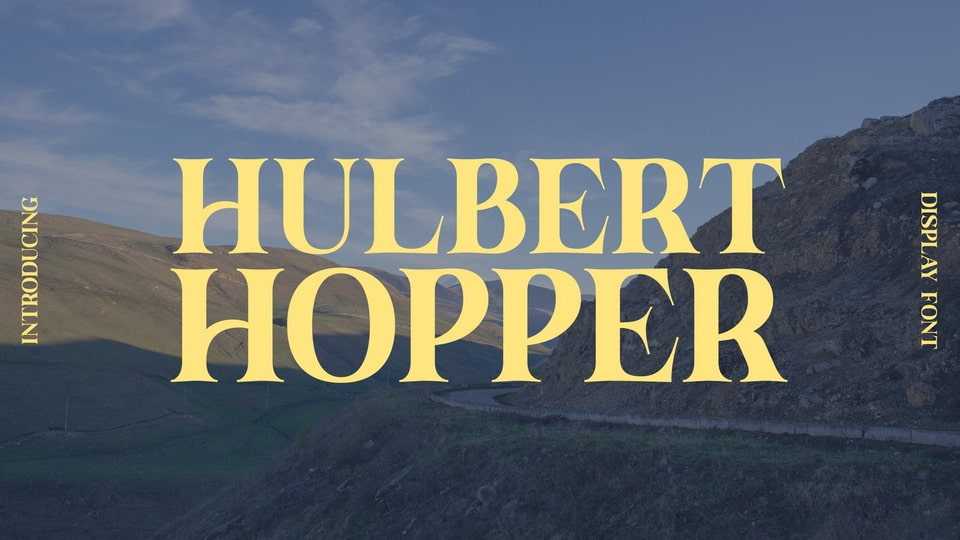
Download Hulbert Hopper font, a stunning and versatile display serif typeface designed for those who love the retro style. With its clean lines, elegant curves, and classic serif style, Hulbert Hopper font is easy to read and sure to grab the attention of your audience.